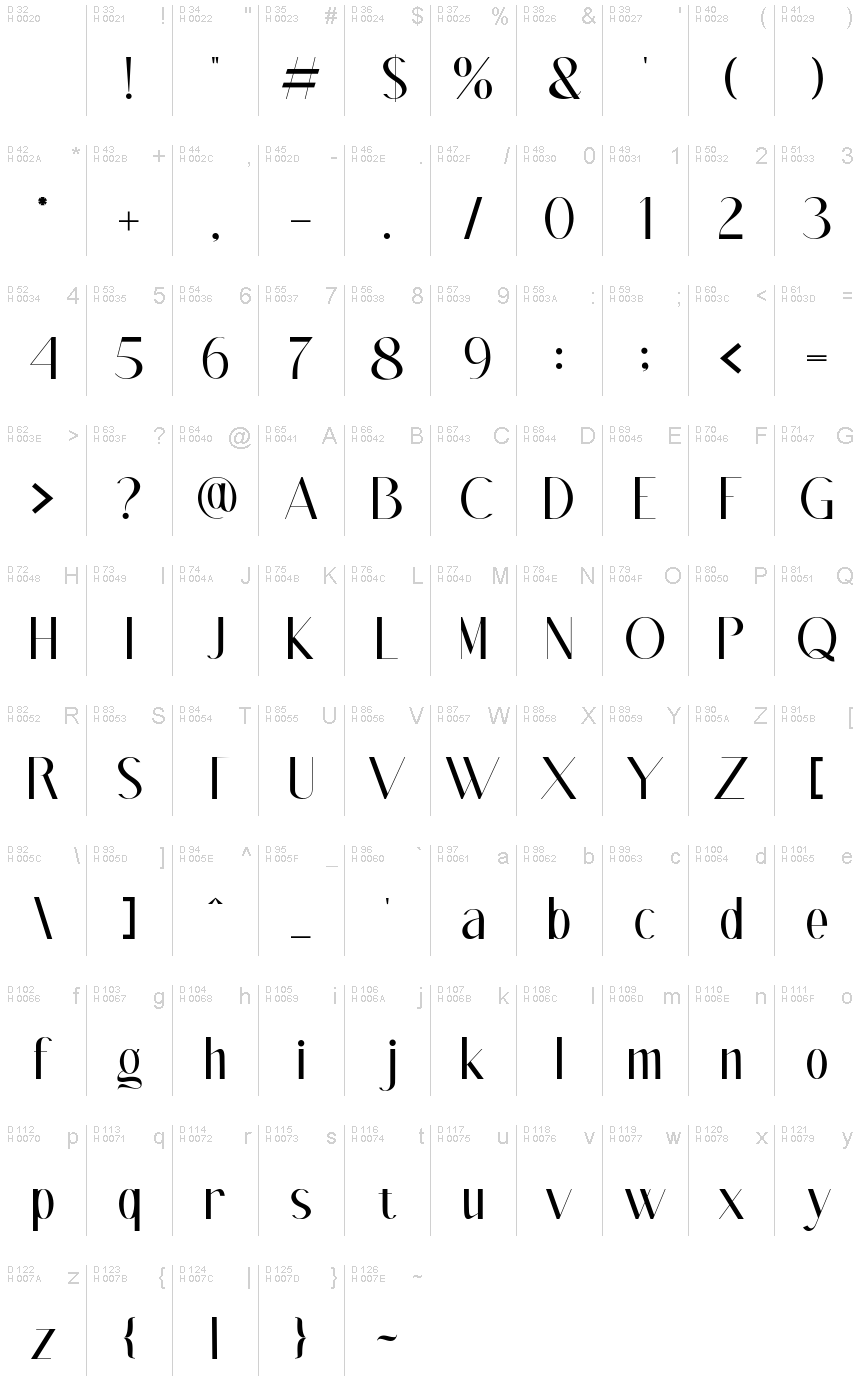
Slogest
Slogest is a captivating sans serif font with a distinct vintage flair. Its condensed width lends a sense of elegance and sophistication, while the ornate, decorative elements add depth and character. The interplay of sharp, angular serifs and rounded terminals creates a visually striking contrast, evoking a timeless, old-world aesthetic. This font excels in a variety of design applications, from editorial layouts and branding to packaging and event materials, effortlessly blending tradition and modernity.
Slogest's versatility and unique personality make it an enticing choice for designers seeking to craft memorable, impactful visual experiences.